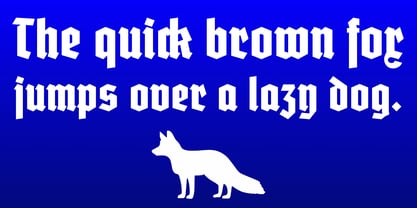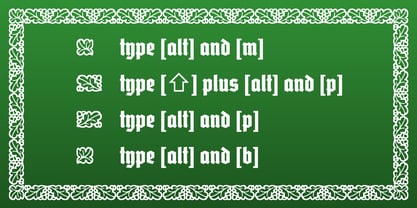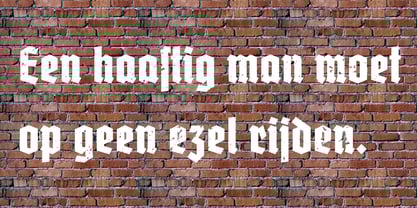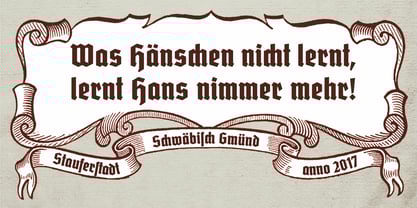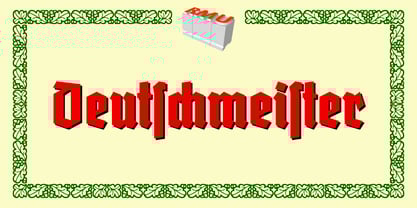
Deutschmeister Font
This Deutschmeister Font is perfect for traditional German branding, brewery materials, heritage restaurant signage, cultural event promotions, historical publications, traditional craft labels, Oktoberfest designs, European tourism materials, artisan bakery packaging, and authentic Germanic business communications.
What makes this Deutschmeister Font exciting is its authentic Germanic heritage that captures the essence of traditional German craftsmanship and cultural pride. The font features classic letterforms with traditional proportions that evoke the masterful precision and time-honored traditions of German typography. Its authoritative character and cultural authenticity make it ideal for brands seeking to communicate heritage, quality craftsmanship, and European sophistication.
The Deutschmeister Font family includes regular, medium, and bold weights with traditional alternates and decorative variants. This comprehensive Germanic font family provides designers with the tools to create authentic, culturally-rich typographic compositions while maintaining the traditional character essential for heritage brand communications and cultural applications.
Traditional businesses and cultural organizations consistently choose Deutschmeister Font Free Download for projects requiring authentic Germanic appeal and cultural credibility. This font's distinctive traditional character perfectly captures the craftsmanship values and cultural heritage that resonate with audiences who appreciate authentic European traditions and quality artisanal products.
The masterful construction of Deutschmeister Font showcases carefully crafted letterforms with traditional proportions that ensure excellent readability across all applications. Its cultural authenticity and robust design create memorable brand impressions while maintaining the heritage quality essential for traditional businesses and cultural institutions.
Professional designers appreciate how Deutschmeister Font brings immediate cultural authenticity and traditional credibility to brand communications. The font's Germanic nature allows organizations to communicate heritage craftsmanship and European quality while maintaining the professional standards necessary for effective cultural positioning and traditional market appeal.
The timeless appeal of Deutschmeister Font makes it particularly effective for brands emphasizing traditional craftsmanship, cultural heritage, and authentic European values. Its Germanic character resonates strongly with consumers who appreciate traditional quality, artisanal excellence, and businesses that honor time-tested European traditions.
Whether developing branding for traditional breweries or creating materials for cultural festivals, Deutschmeister Font Free Download provides the authentic typographic foundation that heritage brands need to communicate their Germanic traditions, cultural authenticity, and the masterful craftsmanship that defines European excellence and traditional quality standards.